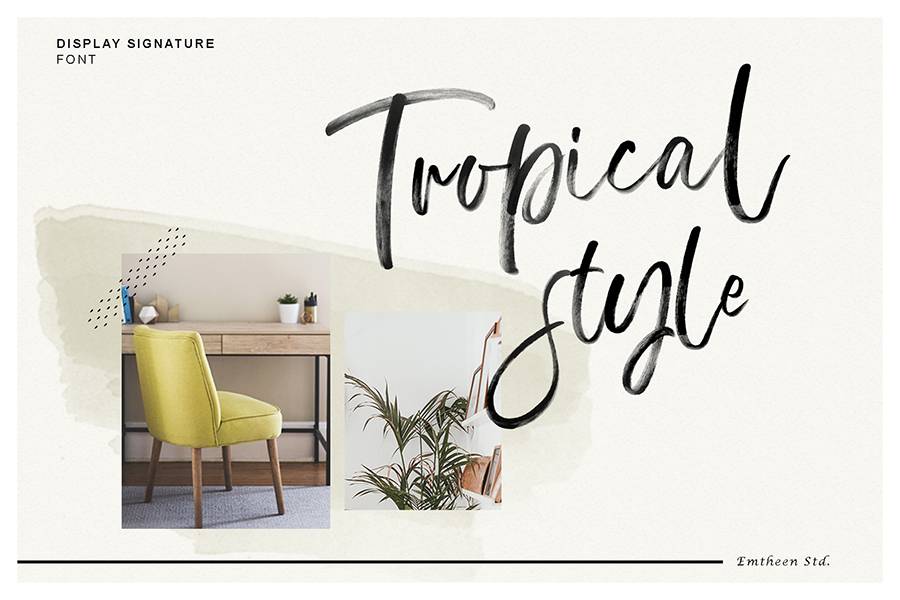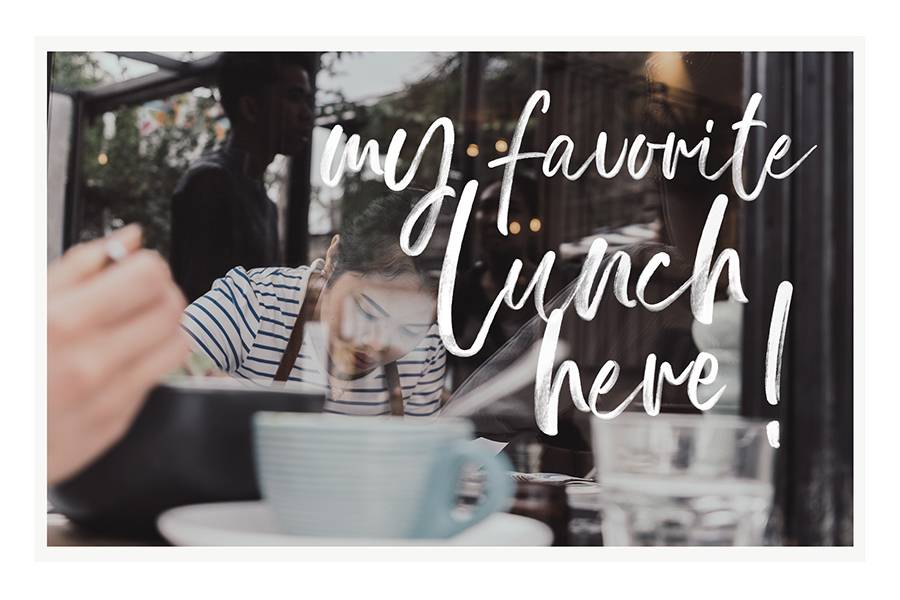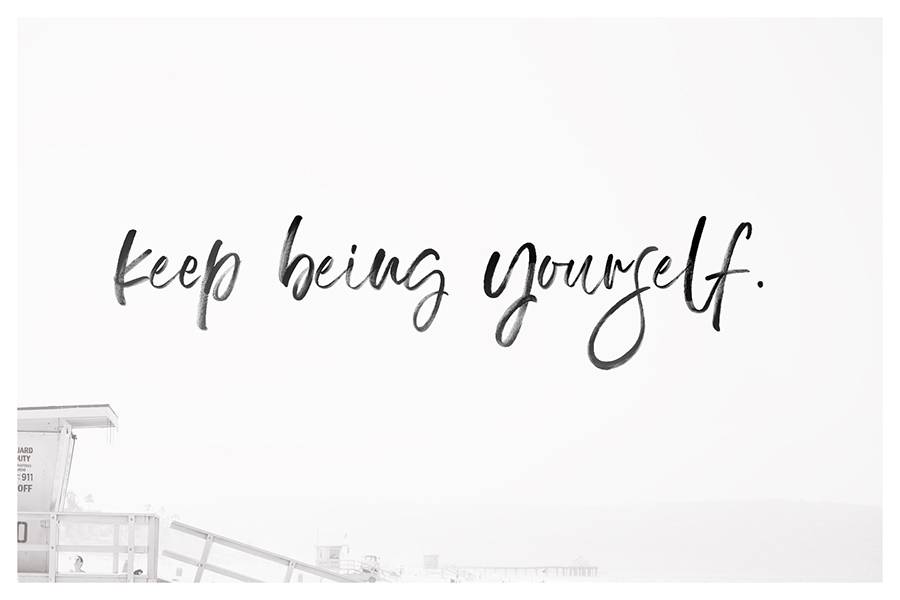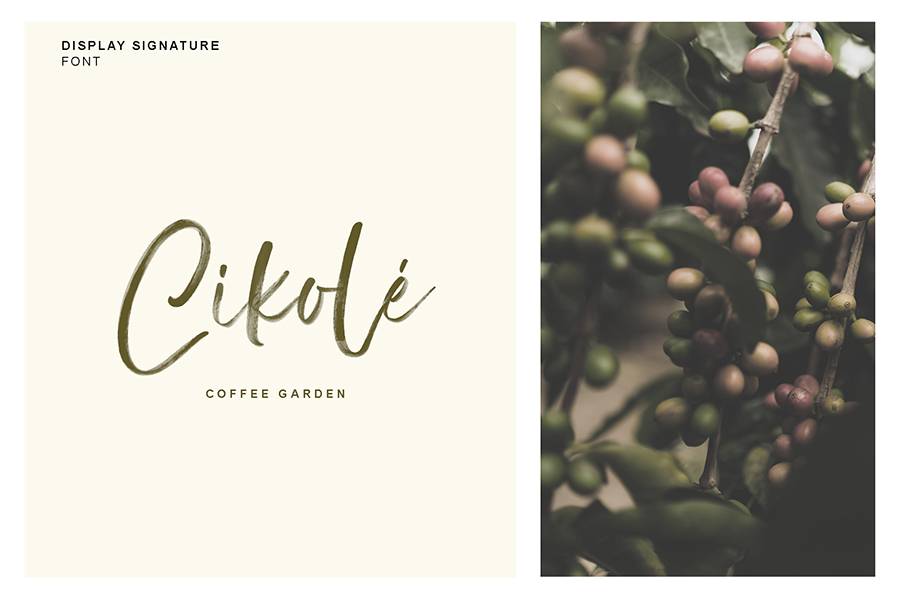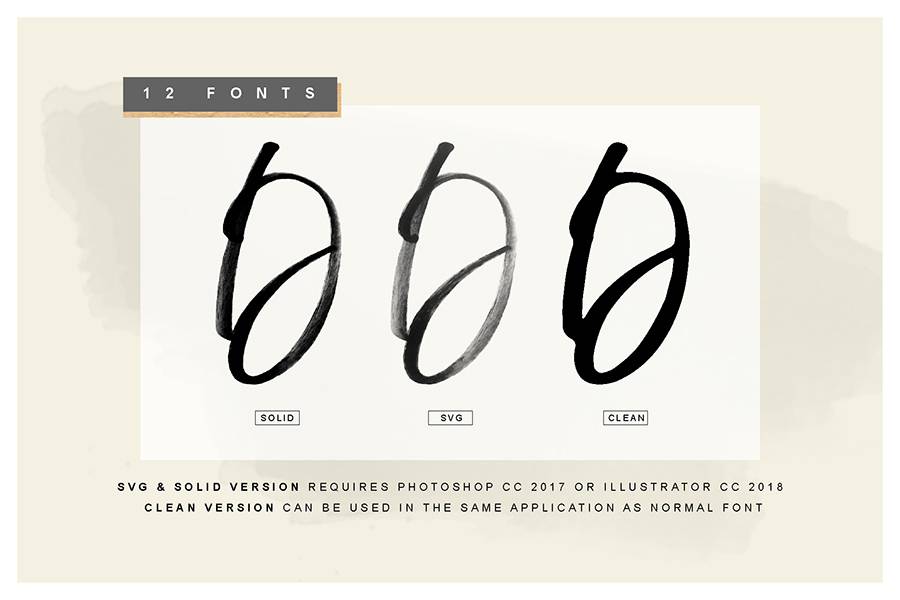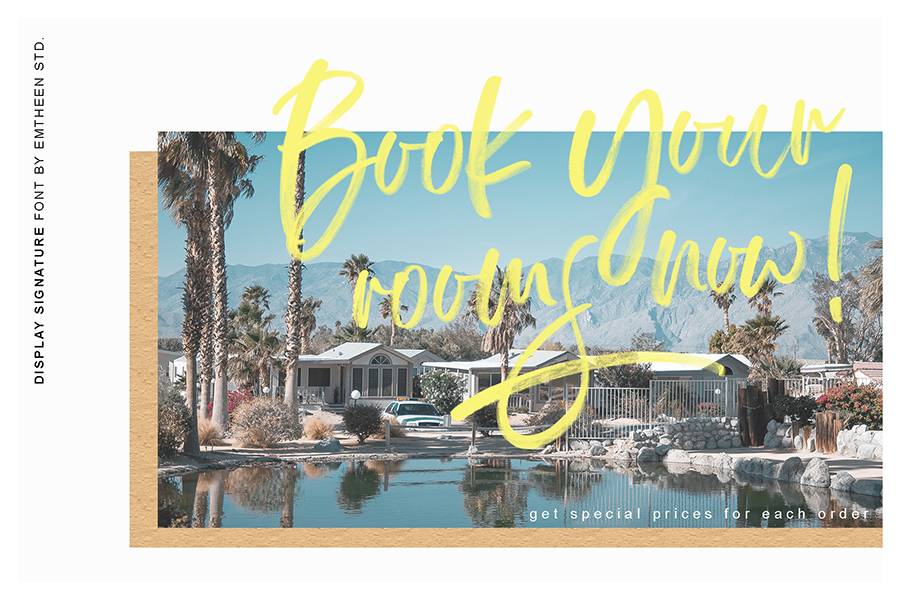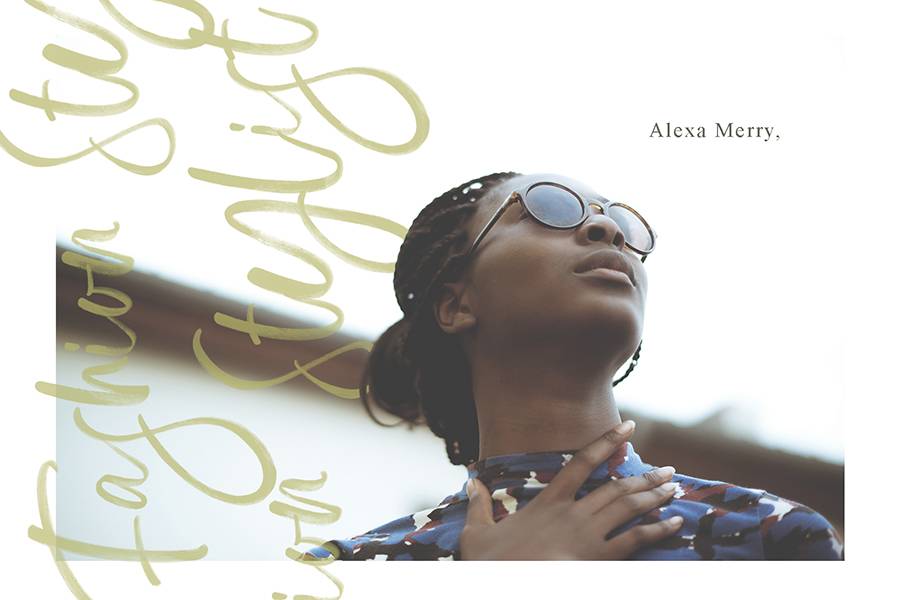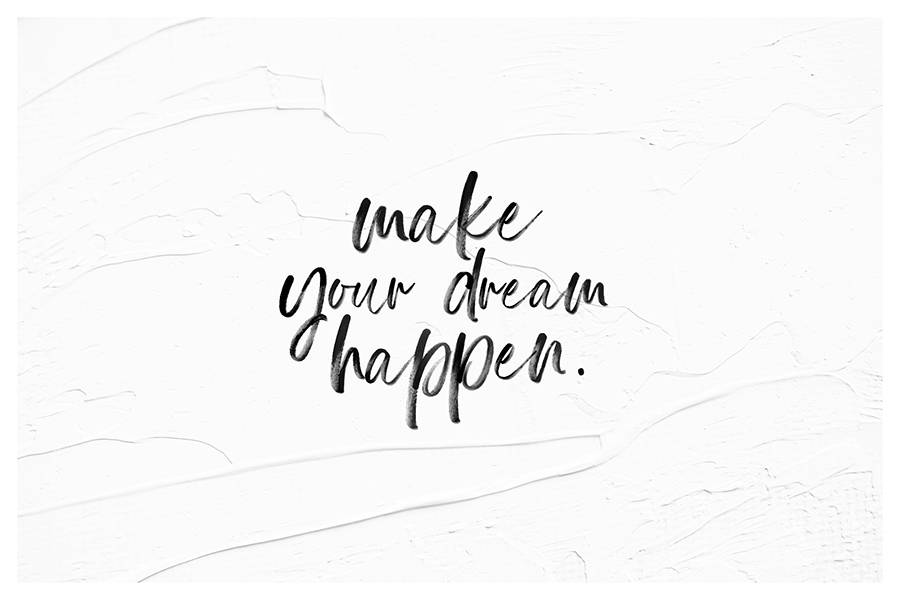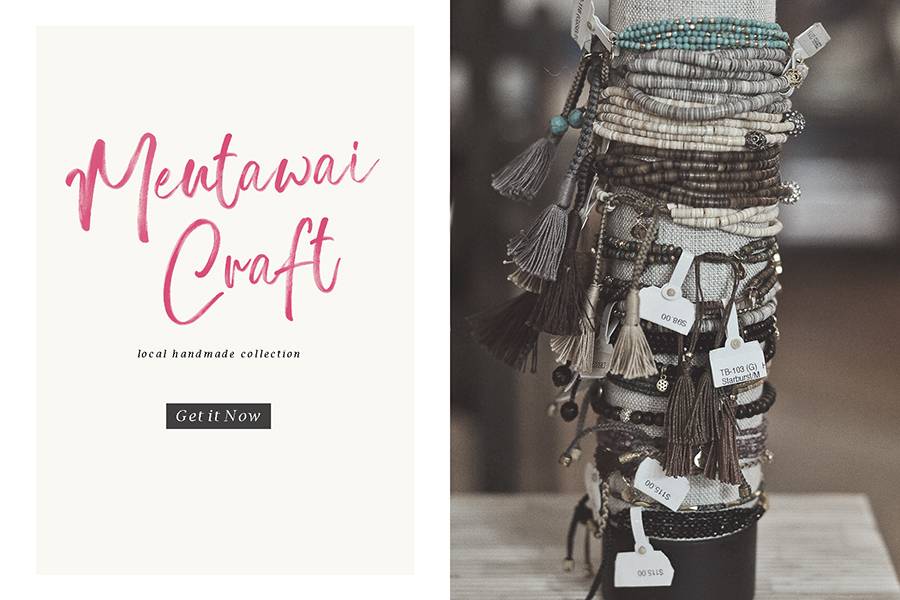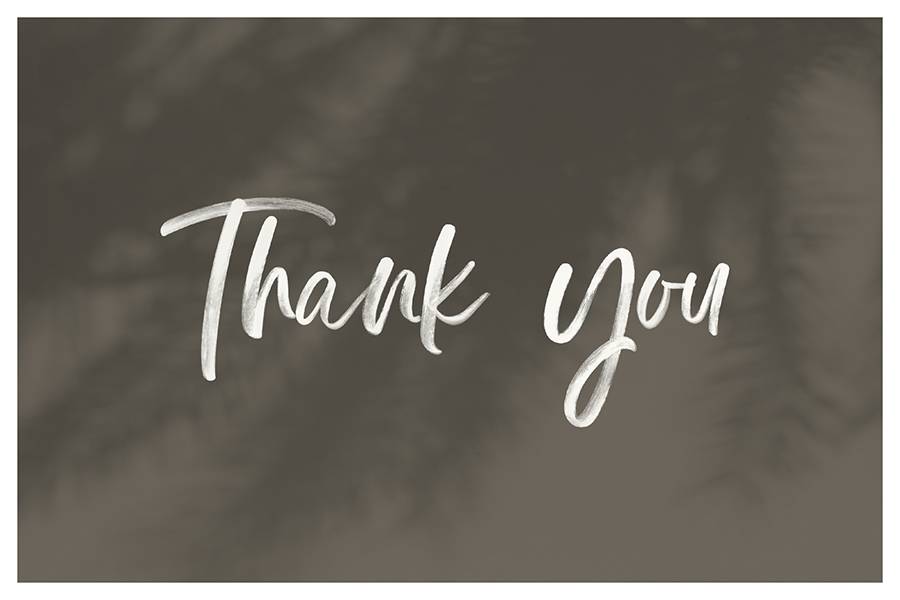
Display Signature Brush Font is a lively and elegant handwritten script that mimics natural brush strokes with a smooth, flowing style. Its balanced weight and moderate contrast give it a casual yet refined personality, making it ideal for branding, invitations, and creative projects seeking a personal, artistic touch. This font works beautifully in headlines and logos where a signature-like, authentic feel is desired.
Display Signature Brush Font
About Display Signature Brush Font
| Font family | Display Signature Brush Font |